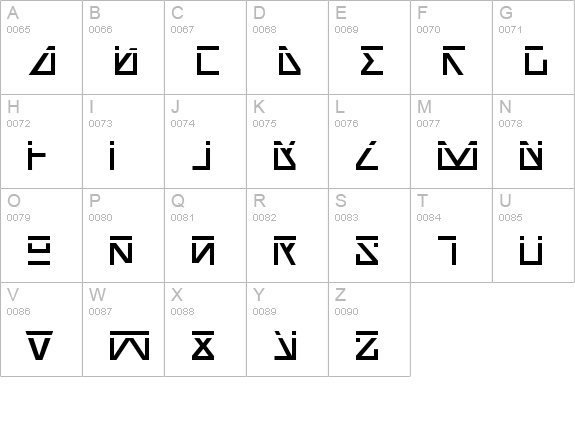
Nick Turbo Laser Font Details
Nick Turbo Laser font is a dynamic and futuristic typeface that exudes a sense of speed and modernity. This high-energy font features sharp angles and sleek lines, giving it a bold and edgy appearance perfect for projects that require a touch of excitement and innovation. The versatility of Nick Turbo Laser font makes it ideal for a wide range of design applications, from branding and advertising to digital media and product packaging. Whether you are creating a sci-fi movie poster, a tech-inspired logo, or a cutting-edge website, this font will definitely make your designs stand out. Best of all, Nick Turbo Laser font is available for free download at FontsMarket.com. With just a few clicks, you can add this eye-catching font to your collection and start using it in your projects right away. Don't miss out on the opportunity to unleash the power of Nick Turbo Laser font in your designs today!